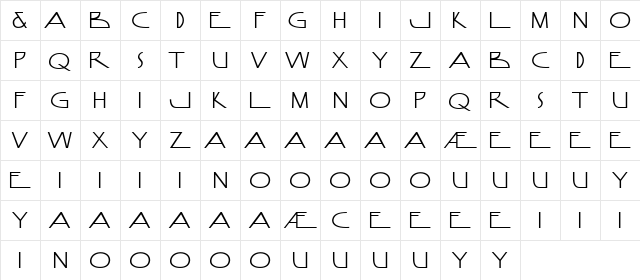
Anamorphos饠sample Regular
| Designer | Com N'B, retranscrit et modifi頰ar Keyan Farlander |
Design Context for Anamorphos饠sample Typeface
Anamorphos饠sample offers clean, dependable letterforms without strong stylistic allegiance, making it a practical choice for designers who need flexibility.